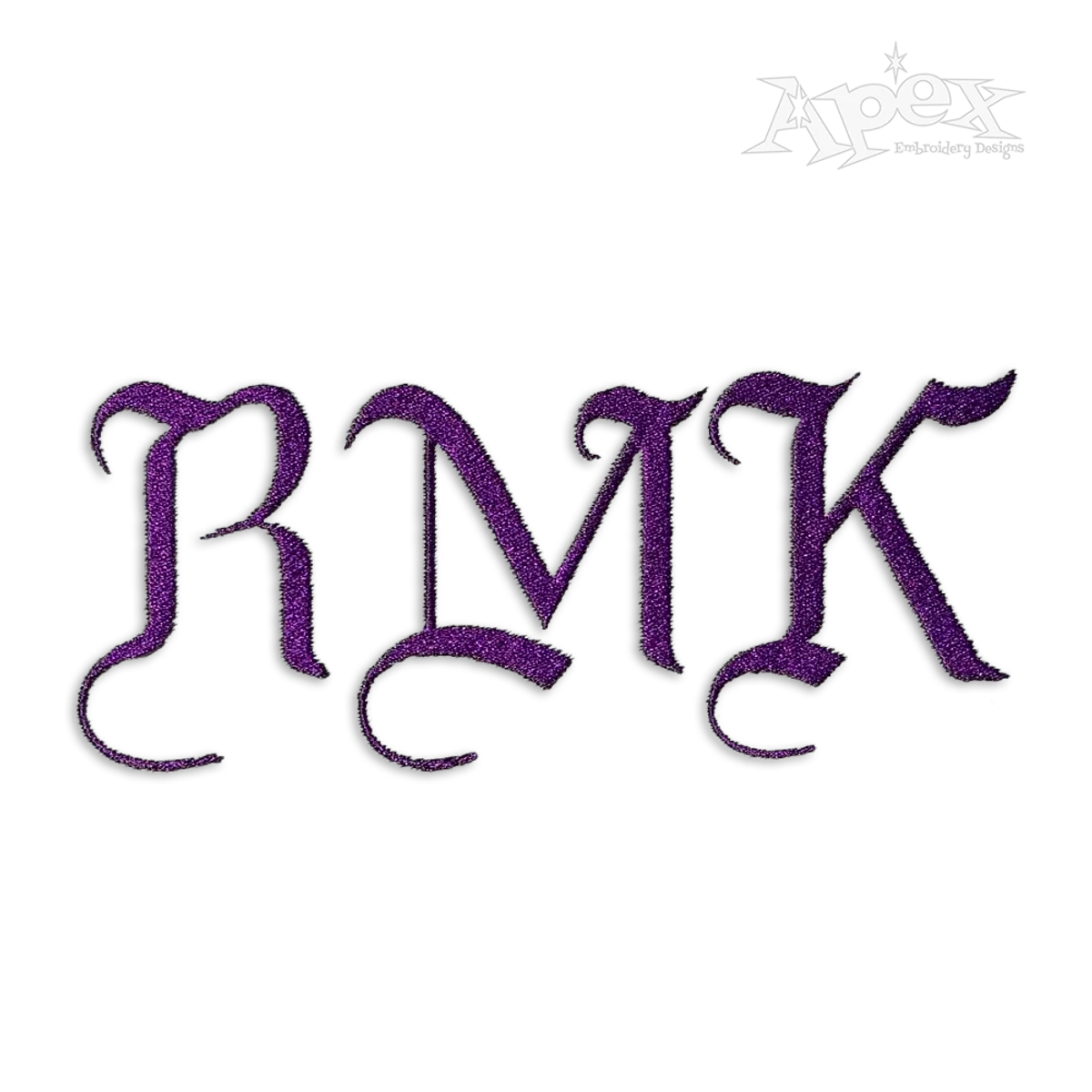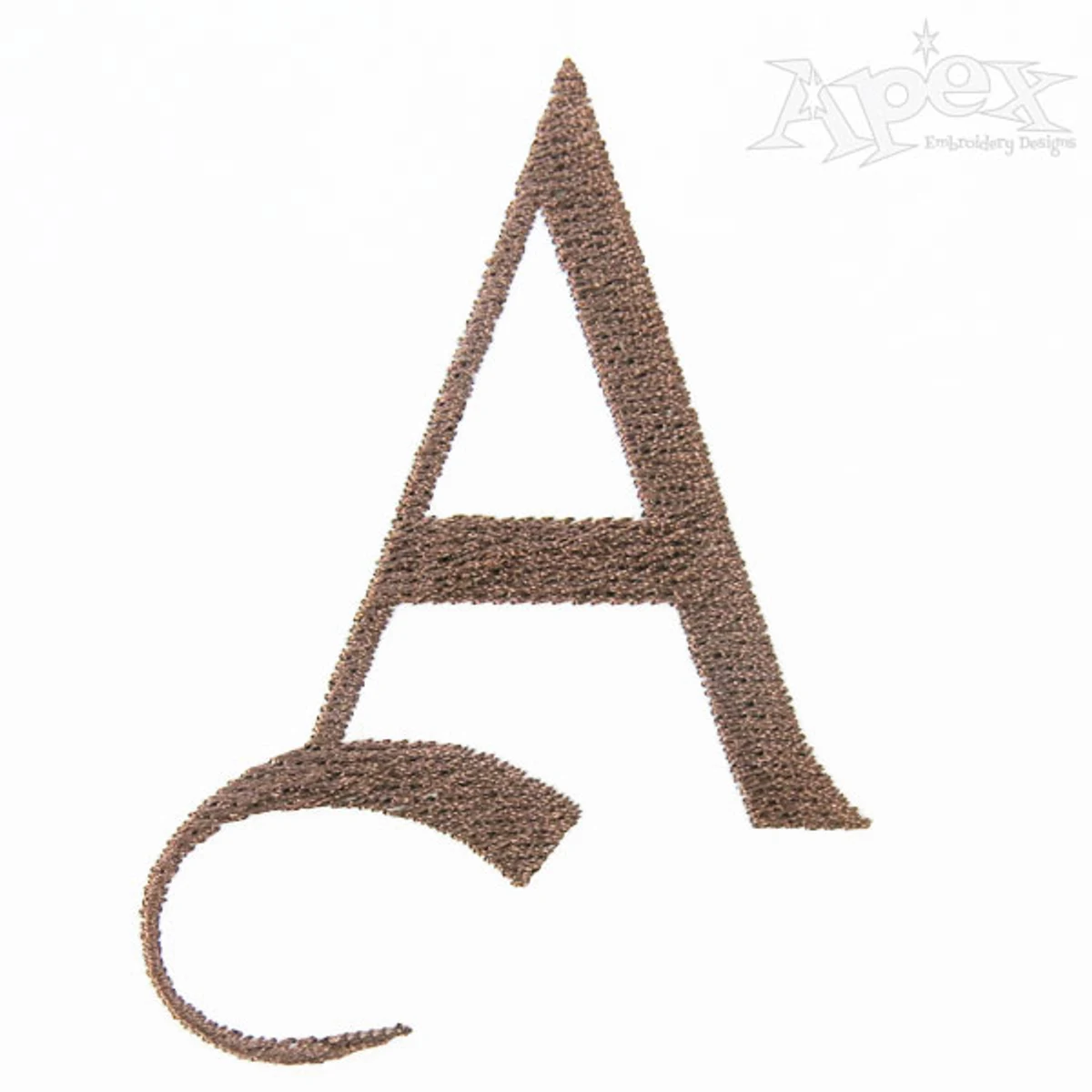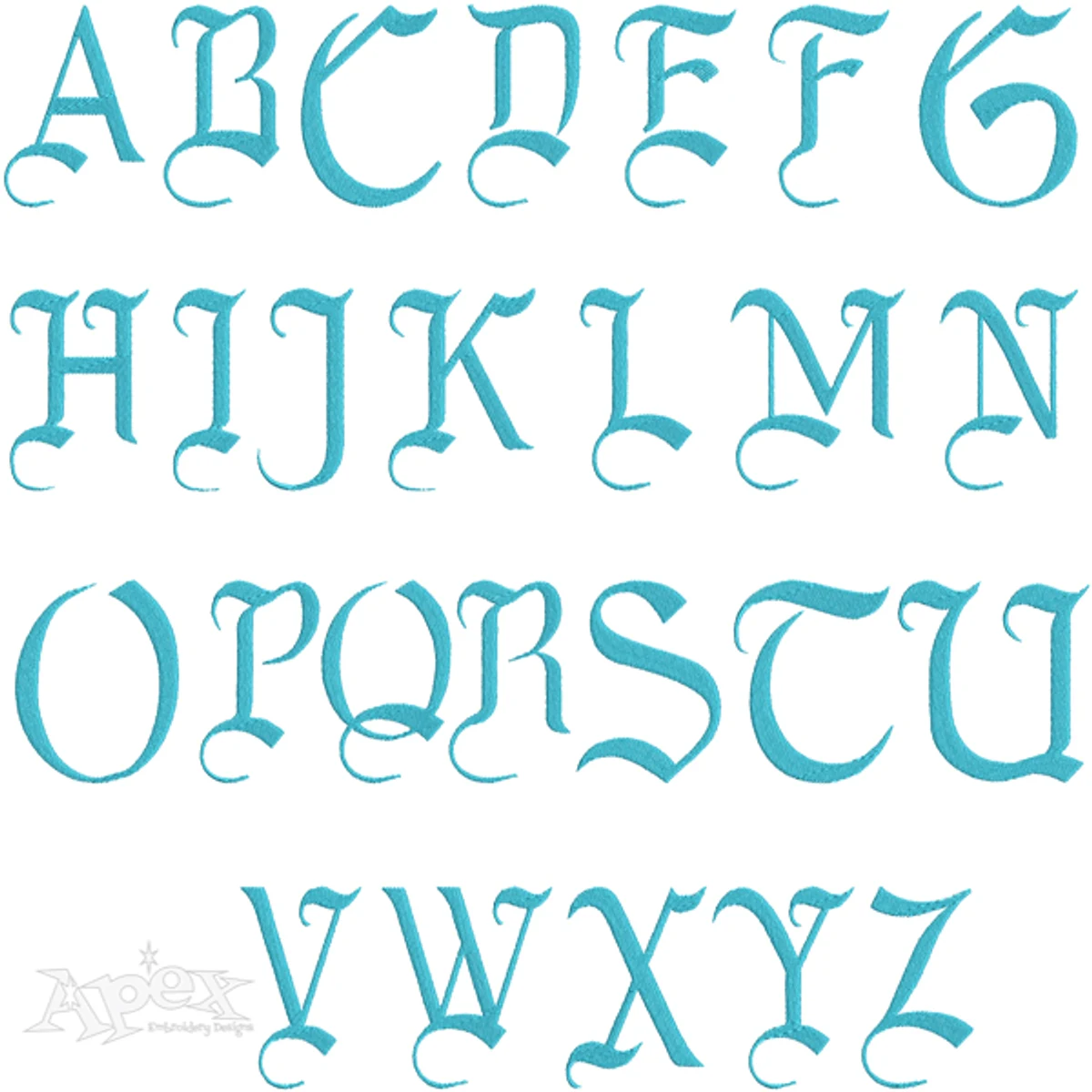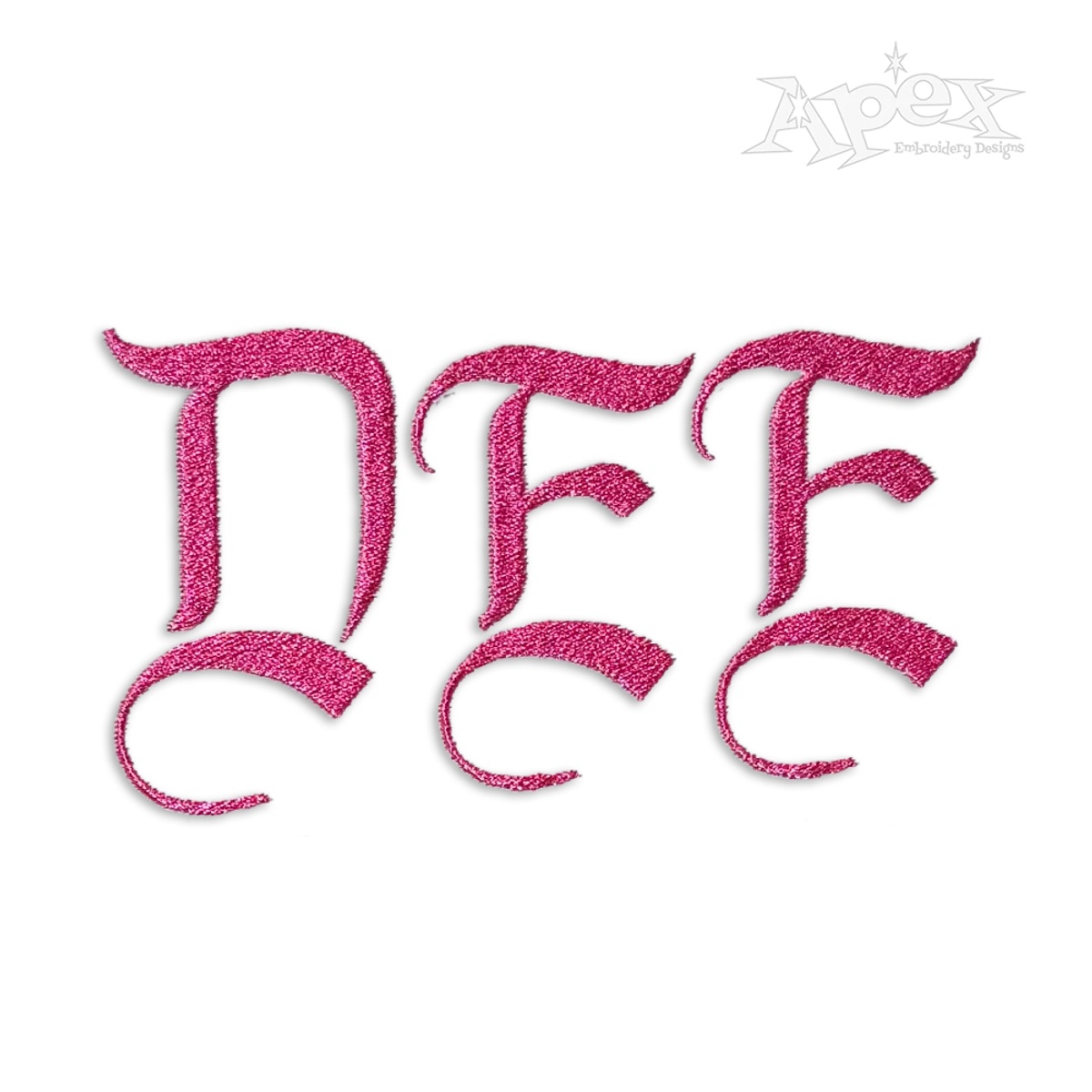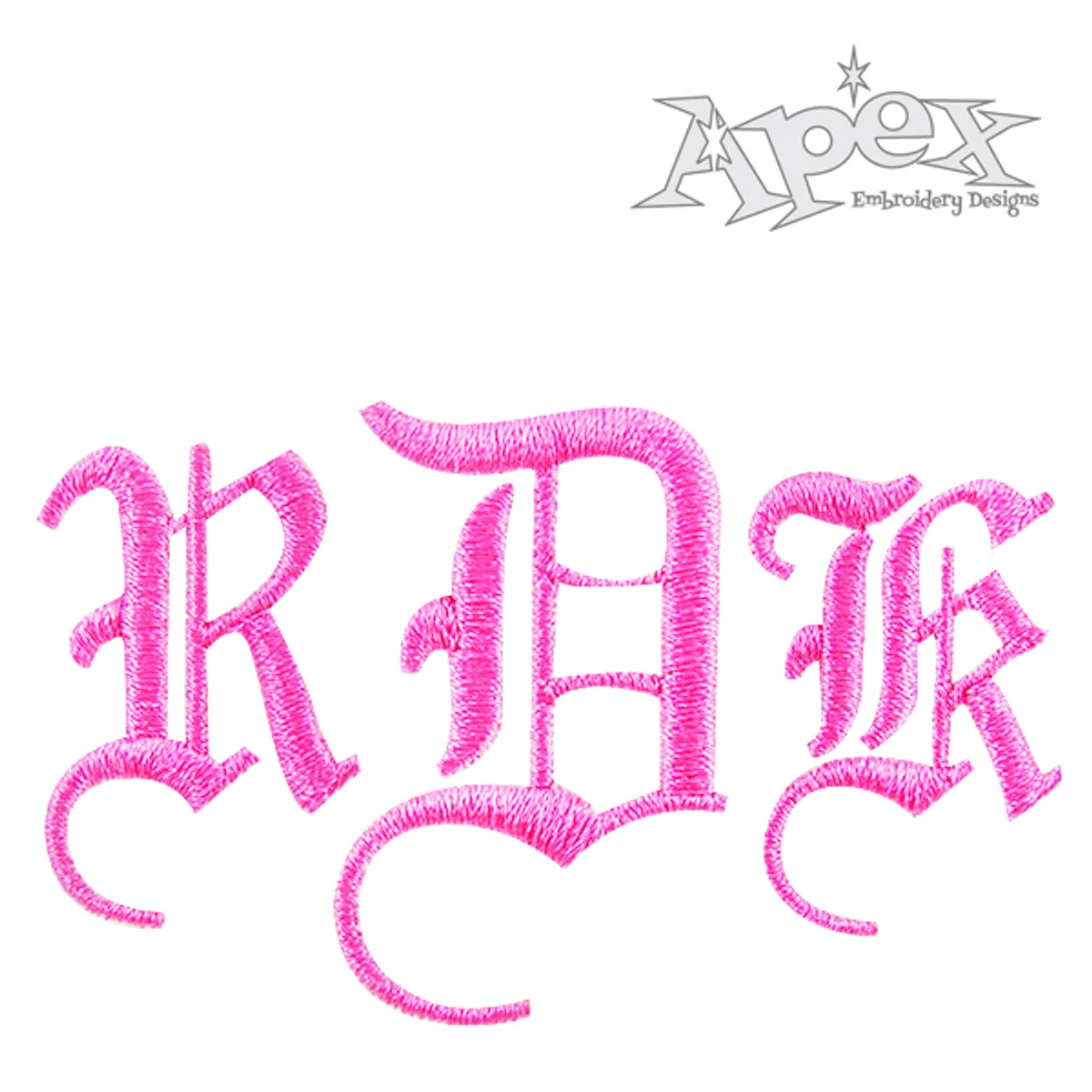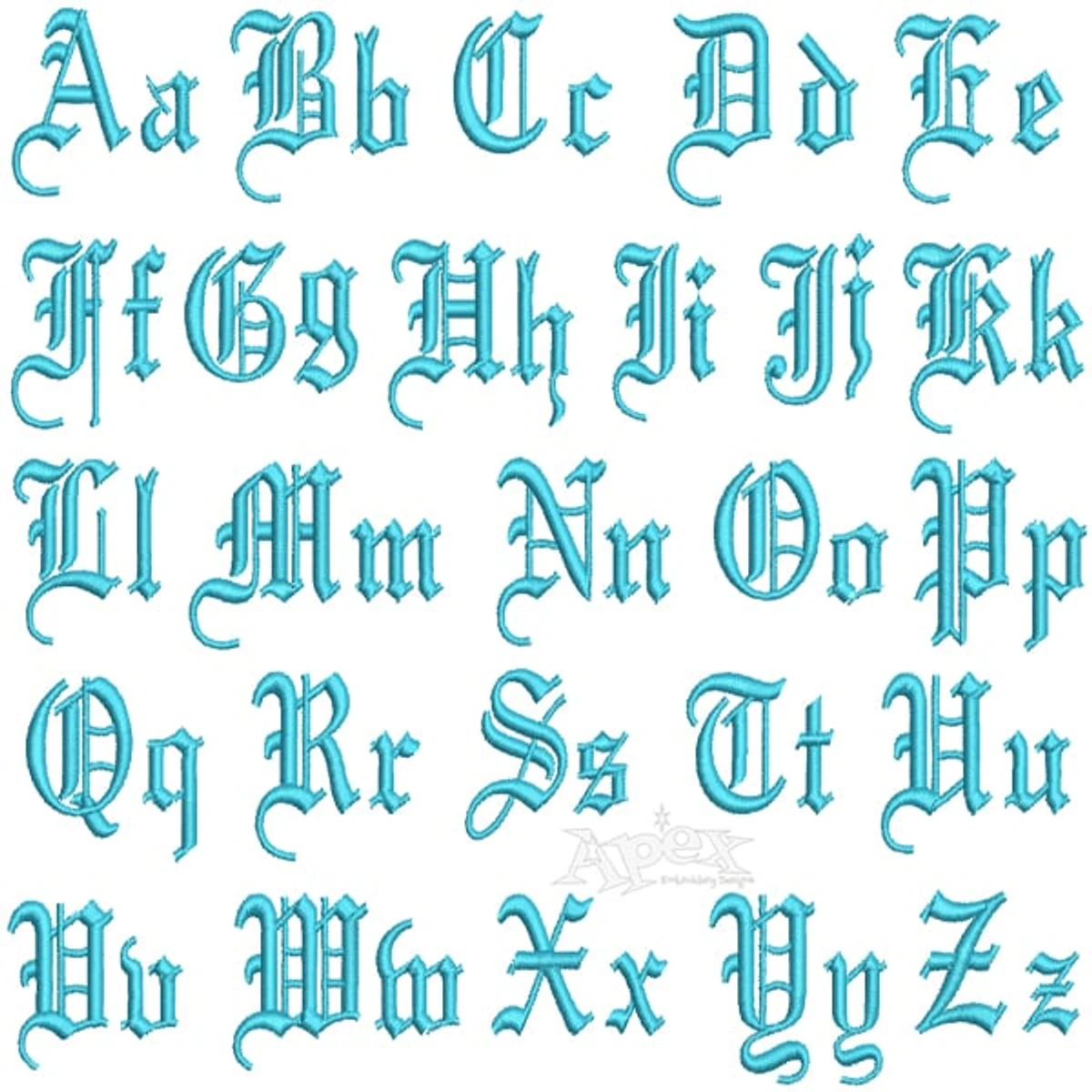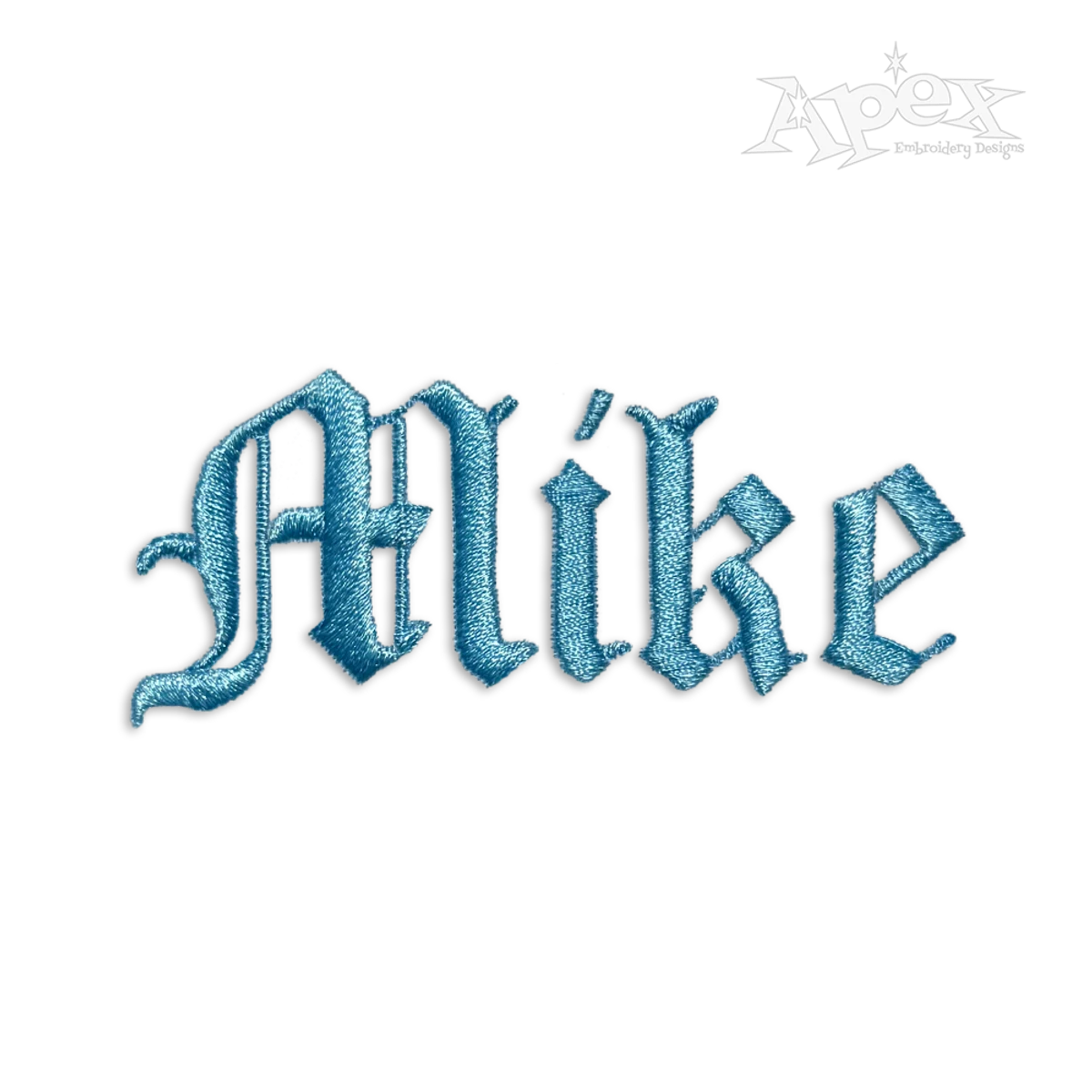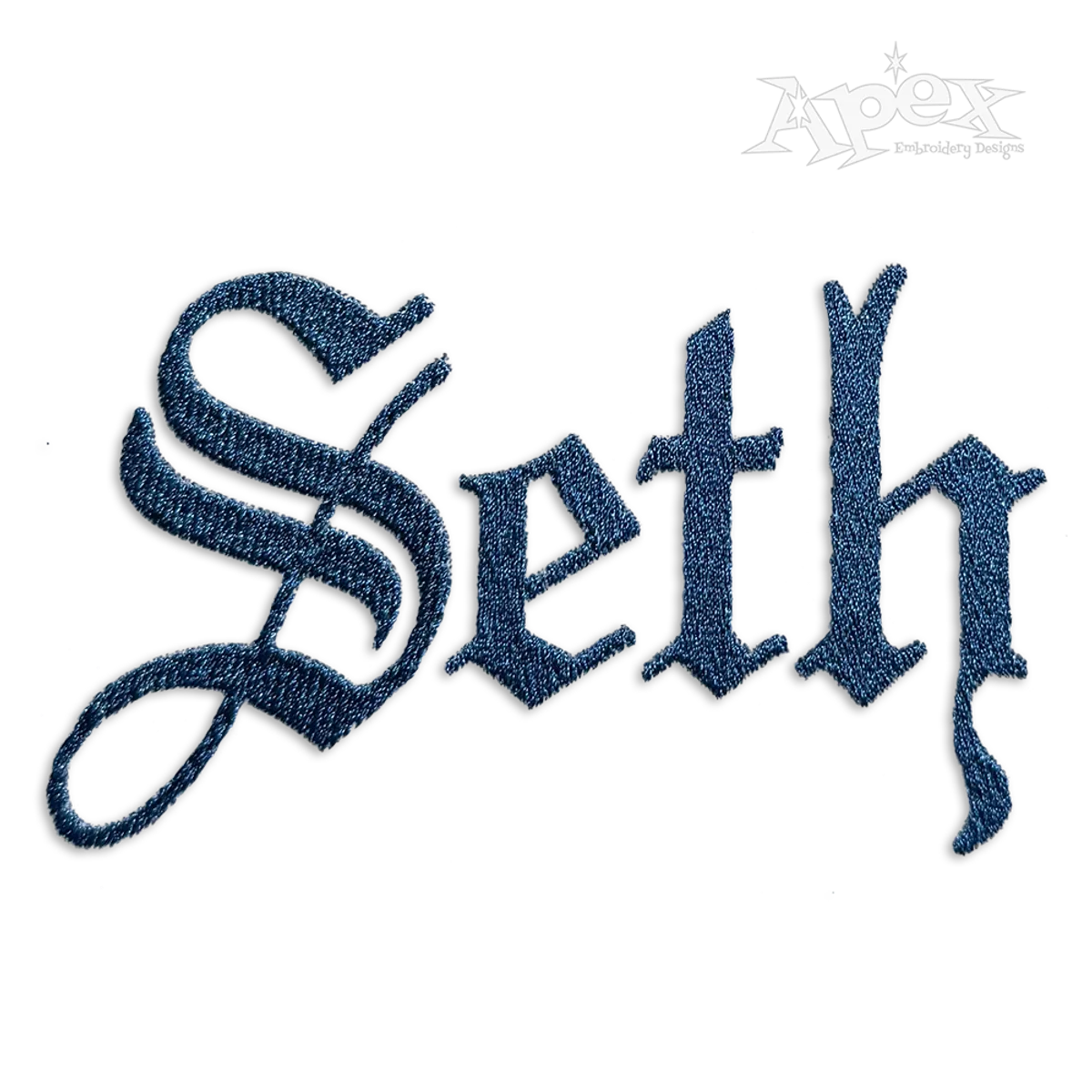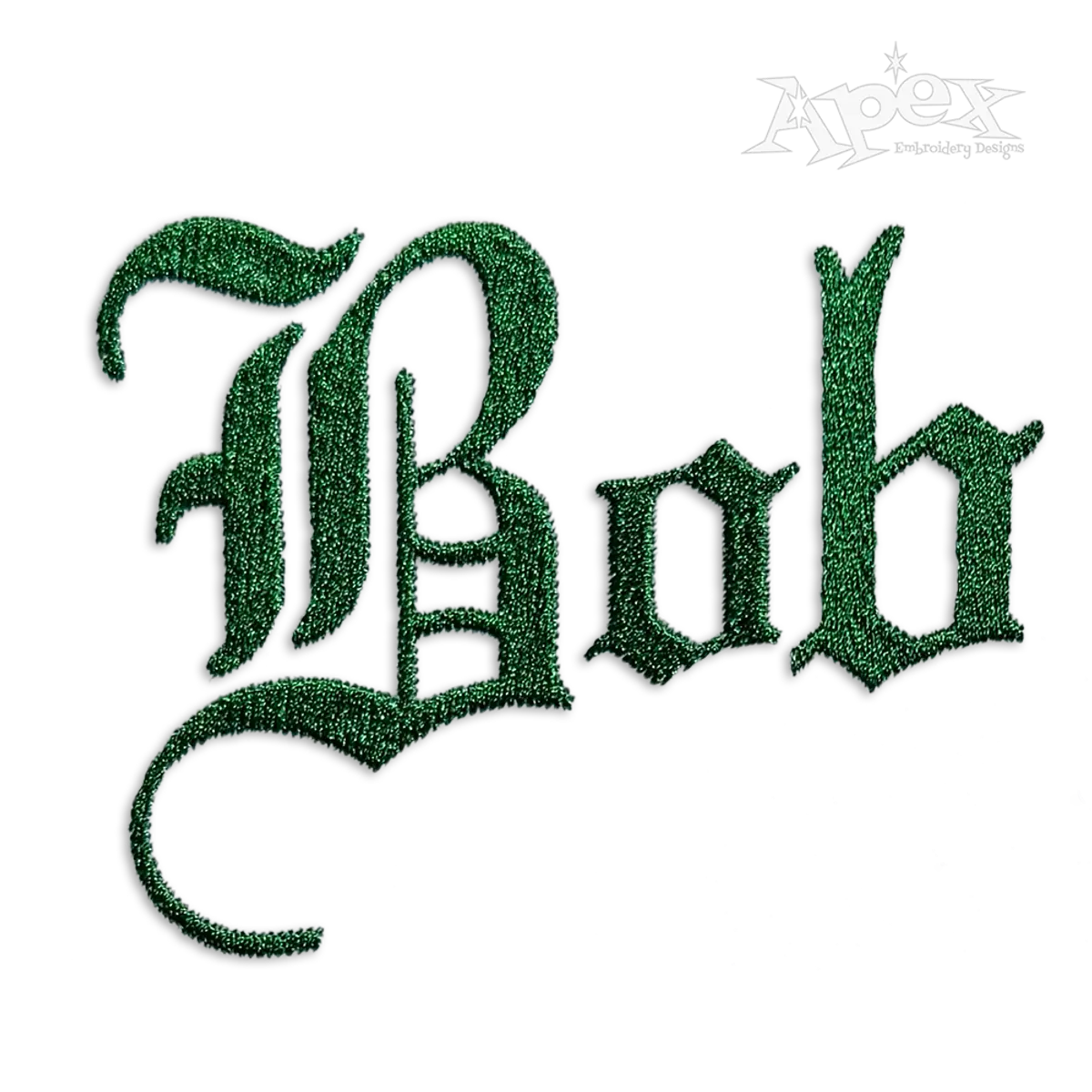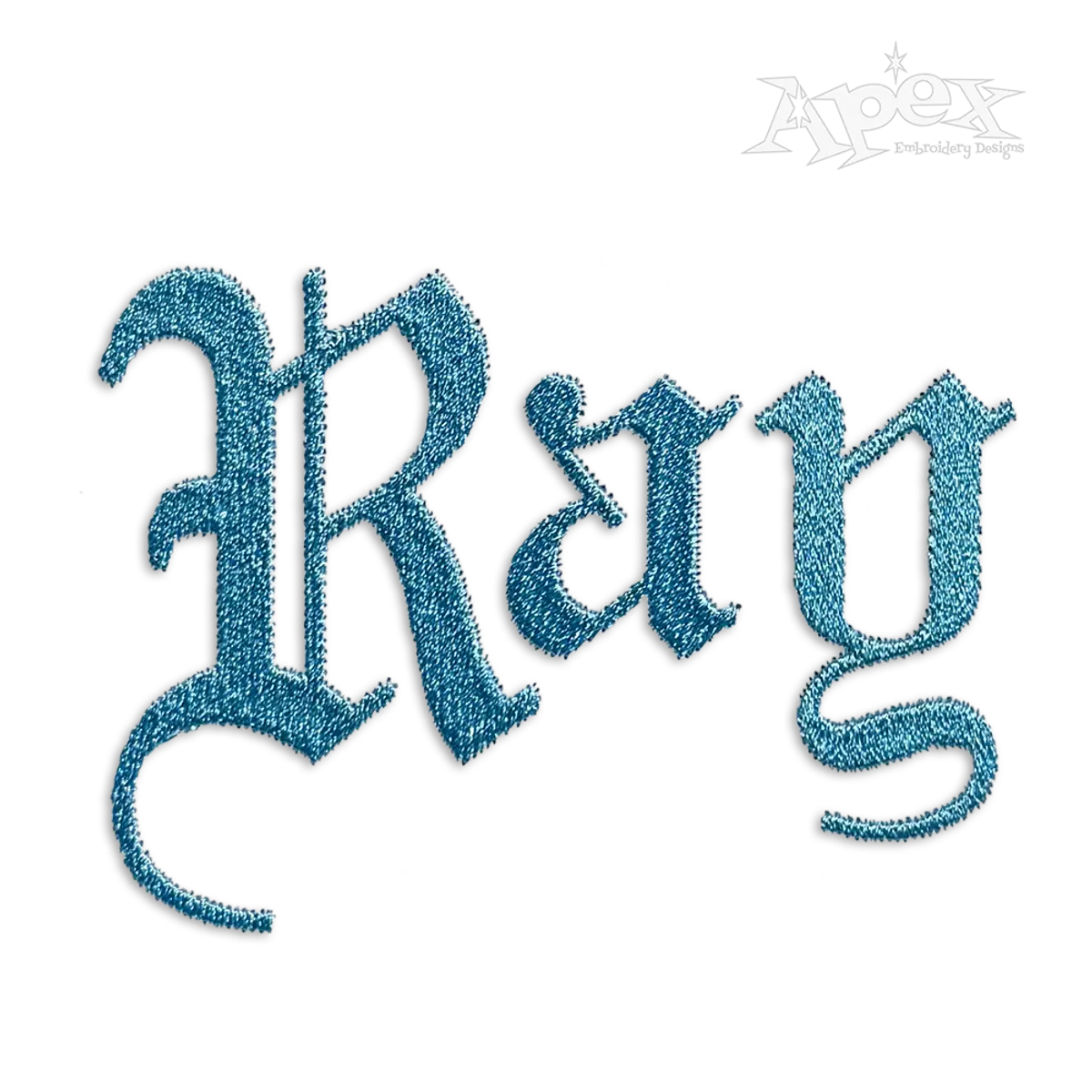
Gothic Embroidery Fonts Bundle
Rooted in the timeless grandeur of medieval scriptoria and soaring cathedral architecture, the Gothic Embroidery Fonts Bundle brings an unmistakable air of dark romance, antiquity, and bold drama to the embroidery hoop. We digitized this four-font collection to celebrate the power of historical blackletter typography—where sharp diamond finials, disciplined vertical staves, and sweeping fractured curves converge. Whether embellishing modern alternative streetwear, crafting spellbinding seasonal decor, or monogramming moody heirloom textiles, these four distinct letterform variations offer the nuanced versatility required to render authentic gothic calligraphy into rich, tactile threadwork.
This comprehensive collection gathers four distinct gothic alphabets, individually digitized to balance needle penetration and thread tension across various scales:
- Gothic Bold: Uppercase 3.5 inches, Lowercase 2.5 inches (ideal for prominent statement lettering and center-back motifs)
- Gothic Age: Uppercase 3.0 inches (ornate, historically inspired majuscules for focal monograms)
- Gothic Small: Multi-size set featuring 0.3-inch, 0.5-inch, 0.75-inch, and 1.0-inch heights (engineered with micro-precision for subtle initialing and multi-line verses)
- Gothic Fill: Uppercase & Lowercase 1.0 inch (crafted with smooth tatami fill and tailored contours for dense, luminous coverage)
Project Ideas for Gothic Embroidery Fonts Bundle
- Bespoke Streetwear & Outerwear: Transform the back yoke of a distressed denim jacket, heavy canvas chore coat, or leather bomber with an arched Gothic Bold statement phrase.
- Dark Romantic Table Linens: Stitch moody black-on-black or antique gold monograms onto heavy linen cocktail napkins and velvet table runners for dramatic dinner gatherings.
- Custom Band & Alternative Merch: Produce boutique-quality embroidered hoodies, structured baseball caps, and musician tour accessories with the crisp, unmistakable edge of Gothic Age capitals.
- Atmospheric Gifting & Home Decor: Monogram velvet throw pillows, gothic wall banners, and heirloom apothecary satchels with dramatic single-letter seals.
- Curated Costume & Seasonal Apparel: Add authentic period script to velvet cloaks, historical reenactment doublets, and elevated Halloween mantle runners.
- Center Chest & Back Yoke: The substantial 3.5-inch Gothic Bold and 3.0-inch Gothic Age letters command visual authority across broad spans, making them the natural choice for central, heroic placement.
- Cuff & Collar Points: Utilize the 0.5-inch and 0.75-inch Gothic Small letters tucked along shirt cuffs, asymmetrical lapels, or tailored shirt collars for an unexpected, bespoke touch.
- Corner Diagonal Alignments: Setting a single Gothic Age initial at a 45-degree angle inside the mitered hem of a napkin or handkerchief highlights the angularity of blackletter strokes.
- Vertical Pocket Accents: Run words or initials vertically alongside a jean jacket button placket or down the side seam of an apron using the 1-inch Gothic Fill alphabet.
Gothic Embroidery Fonts Bundle Craft & Letterform Details
Digitizing historical blackletter requires deep respect for calligraphy and structural discipline. Every stroke in this bundle has been drafted with meticulous inclination angles to honor the rhythm of a broad-nib quill. In the larger styles, satin stitches transition seamlessly through fractured corners, maintaining sharp diamond terminals and crisply defined serifs without bunching or puckering your fabric. The Gothic Fill alphabet employs calibrated interior fill stitching bordered by balanced edge-runs, ensuring the letterforms remain flat, stable, and richly saturated. By carefully calculating lead-in underlays and cornering points for each character, this collection delivers pristine, museum-grade gothic lettering that stitches out with velvety smoothness and commanding presence.